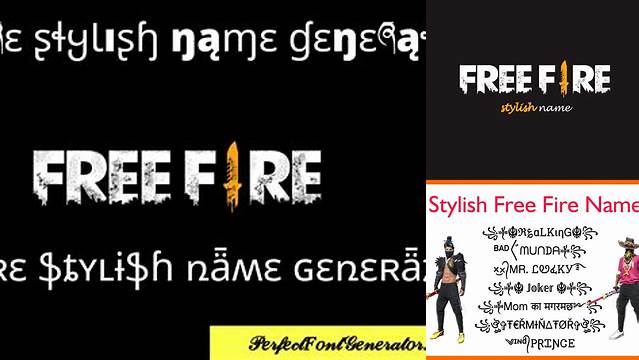
Free Fire Font Name Generator: Create Stylish Nicknames
Hey guys! Are you a Free Fire fanatic looking to amp up your in-game persona? Well, you've come to the right place! In this article, we're diving deep into the world of Free Fire font name generators, showing you how to create stylish and unique names that will make you stand out on the battlefield. Forget boring, generic usernames – we're talking cool symbols, fancy fonts, and eye-catching designs that scream awesomeness. So, buckle up, and let's transform your Free Fire identity!
Why a Cool Name Matters in Free Fire
First things first, let's address the elephant in the room: why even bother with a fancy name? In the fast-paced world of Free Fire, your name is your identity. It's the first thing other players see, and it's your chance to make a lasting impression. A memorable and stylish name can instantly set you apart from the crowd. Think of it as your personal brand – a way to showcase your personality and gaming style. Imagine being recognized not just for your skills, but also for your killer username!
Furthermore, a unique name can actually impact your in-game experience. It can intimidate opponents, build camaraderie with teammates, and even boost your confidence. When you rock a stylish name, you feel like a pro. It's a subtle psychological edge that can translate into better performance on the battlefield. Plus, let's be honest, it's just plain fun to have a cool name! So, if you're serious about your Free Fire game, investing in a great username is a smart move.
Understanding Free Fire Nicknames
Before we jump into the generators, let's break down what makes a good Free Fire nickname. It's not just about slapping on a fancy font; it's about crafting a name that's both visually appealing and meaningful. A great Free Fire nickname is a blend of creativity, personality, and readability. You want something that catches the eye but is also easy for other players to remember and pronounce.
Consider incorporating elements that reflect your gaming style. Are you a stealthy sniper? A fearless rusher? A master strategist? Your nickname can hint at your strengths and give opponents a glimpse of what they're up against. Think about using symbols, characters, or words that resonate with your personality or favorite in-game elements. The key is to be original and authentic. Avoid generic names or overly complicated designs that are hard to decipher. A stylish name should be unique, but it should also be clear and impactful.
How Free Fire Name Generators Work
Now, let's talk about the magic behind these font name generators. These handy tools use a clever trick to create stylish names that bypass the game's standard font limitations. Free Fire, like many online games, has a limited character set. This means you can't just type in any font or symbol you want. That's where Unicode comes in. Unicode is a universal character encoding standard that includes thousands of characters, including a wide variety of stylish fonts, symbols, and accents.
Free Fire name generators work by converting your desired name into Unicode characters that resemble different fonts and styles. They essentially trick the game into displaying these special characters, giving you the illusion of a custom font. These generators typically offer a range of options, from elegant cursive fonts to bold, futuristic designs. You can also add symbols, such as stars, hearts, or even mini-icons, to further customize your name. It's like having a personal stylist for your in-game identity! The best part? It's all super easy to use. You simply type in your desired name, and the generator spits out a bunch of stylish variations. It's a quick and effortless way to create a name that's truly your own.
Top Free Fire Font Name Generators
Alright, let's get to the good stuff! I've scoured the internet to bring you some of the top Free Fire font name generators out there. These tools are user-friendly, offer a wide range of options, and are guaranteed to help you craft a killer nickname.
Nickfinder: Nickfinder is a powerhouse when it comes to name generation. It's not just for Free Fire; it works for tons of other games and platforms too. It boasts a vast library of fonts, symbols, and decorative elements, allowing you to create names that are truly one-of-a-kind. The interface is clean and intuitive, making it a breeze to use, even if you're not tech-savvy. Plus, Nickfinder offers a handy search function, so you can find inspiration from existing names or browse by category. If you're looking for a generator with endless possibilities, Nickfinder is a solid choice.
LingoJam: LingoJam is another fantastic option for Free Fire enthusiasts. This generator specializes in converting text into various stylish fonts and Unicode characters. It's super simple to use – just type in your name, and LingoJam instantly generates a bunch of cool variations. What sets LingoJam apart is its focus on readability. The fonts it offers are stylish without being overly complicated, ensuring that your name is easy to read in the heat of battle. If you value clarity and style, LingoJam is worth checking out.
Cool Fancy Text Generator: Don't let the name fool you – this generator is more than just fancy text. It's a comprehensive tool for creating stylish names for Free Fire and other games. It features a wide selection of fonts, symbols, and decorative elements, allowing you to fine-tune your name to perfection. The interface is slightly more advanced than some other generators, but it's still very user-friendly. Plus, Cool Fancy Text Generator offers some unique features, such as the ability to create custom text art and generate random names based on your preferences. If you're looking for a generator with advanced customization options, this one's a winner.
There you have it, guys! A comprehensive guide to creating stylish Free Fire names that will make you a legend on the battlefield. Remember, your name is your identity in the game, so it's worth investing the time and effort to make it awesome. With the help of Free Fire font name generators, you can easily transform your boring username into a work of art. So, go ahead, unleash your creativity, and craft a name that's as unique and stylish as you are. Good luck, and I'll see you in the game!